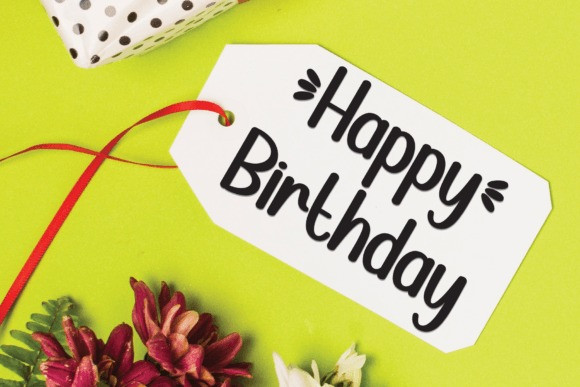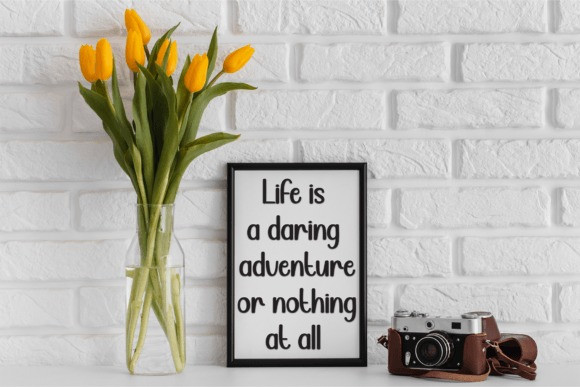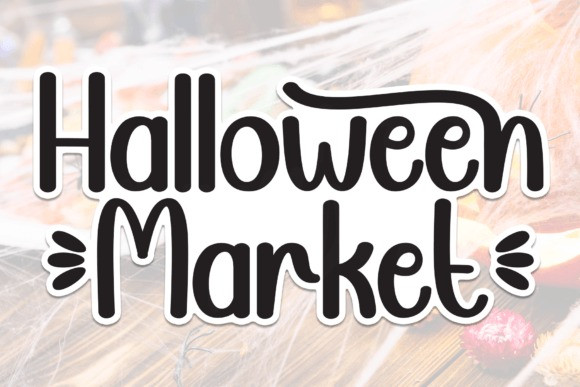
Halloween Market Font
Halloween Market Font is a sweet and friendly handwritten display font. Cute and fun, this font is ideal for writing wedding invitations, cards, or any other design that might need a fun touch!